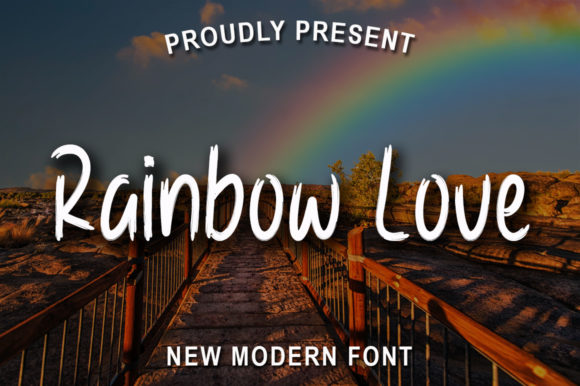
Unleash your creative spirit with Rainbow Love Font, a whimsical and captivating script font perfect for adding a touch of warmth and charm to your design projects.
Crafted by the talented morningtimestudio, Rainbow Love is a handwritten font that exudes personality and charm. Its flowing lines and playful characters give it an irresistible allure, making it perfect for creating eye-catching logos, heartwarming invitations, heartfelt greeting cards, and any project that calls for a touch of whimsy and flair.
Transport yourself to a world of imagination and creativity with Rainbow Love. Its versatility knows no bounds, making it the ideal choice for a wide range of design endeavors. Whether you're a seasoned graphic designer or a creative enthusiast, Rainbow Love will elevate your designs to new heights.
Embrace the magic of Rainbow Love and let your imagination run wild. Its enchanting style will captivate your audience and leave a lasting impression. Experience the joy of creating beautiful and meaningful designs that truly connect with your audience.
With Rainbow Love, the possibilities are endless. Explore the realm of creativity and let your designs bloom with charm and delight. Dive into the world of Rainbow Love and discover a font that will transform your creative vision into a captivating reality.